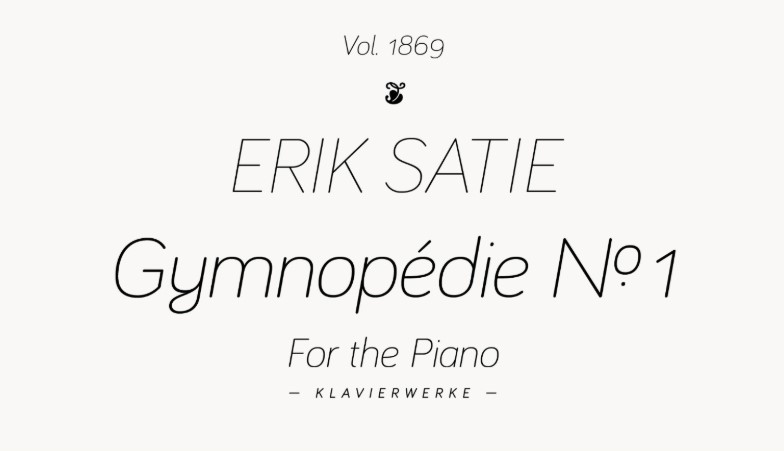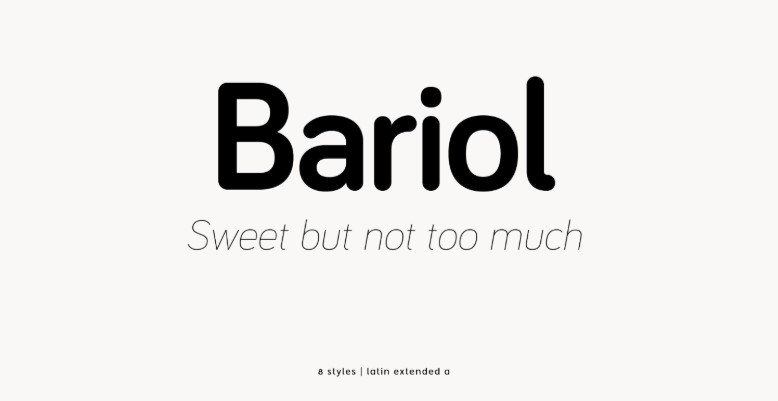
Bariol Font
Here is the Bariol Font that is utilized in Adobe. This typeface is famous for its Bold and Italic function and it is also present inside the google fonts. As a give up end result, it makes it possible for being one of the important multi-precious sans serif font that is similar to simplifica font alternatives and certain to help your format and seem knowledgeable. It’s miles a flexible that is a remarkable manner to artwork in body replica as proper as titles, and there’s an understated beauty to it that we quite like.
So, it’s taken into consideration high-quality for extremely-cutting-edge designs. Bariol Font Free You want to select the form of font that’s well superior, and each and every character is recognizable in small sizes, bold, or italic. And all of those patterns have possessed opentype document codecs. This font is the most effective one which has traces on the pinnacle of anybody.
They’re awesome properly best with not unusual or vital purposes. Alternatively, a sans-serif font is just like lemon milk font type is without the extra strains. Download Keep in thoughts the context and goal marketplace of your projected layout. Get to apprehend how and the vicinity the consumer goes to reveal the picture.
It is a totally precise font with a nature of commonality that looks effective in an in-intensity scope of makes use of like printing or displaying. It looks as if wild magnolia and attractive fonts.